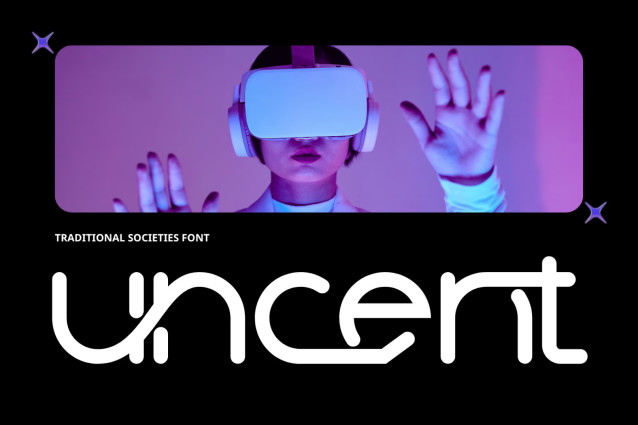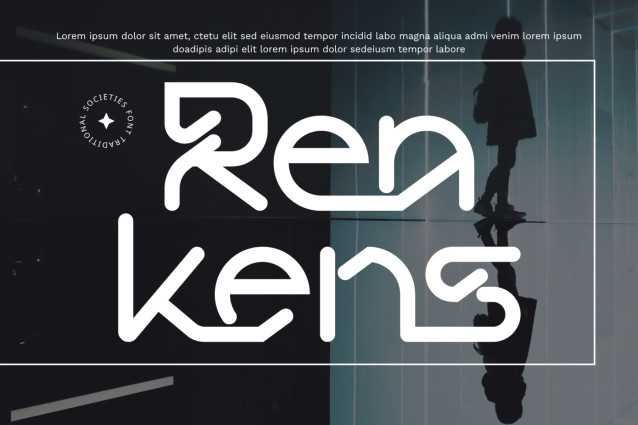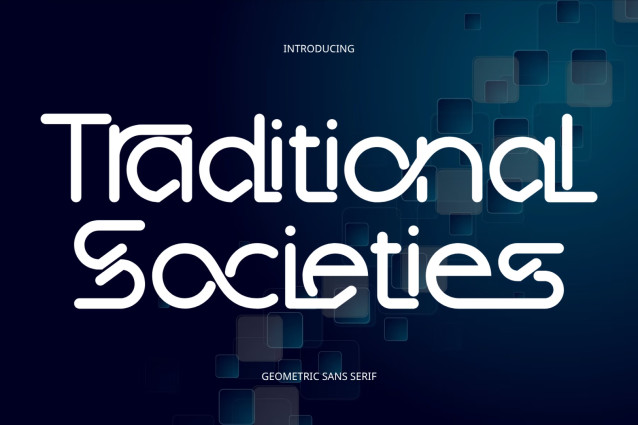
Traditional Societies – Futuristic Font
Traditional Societies – Futuristic Font – Futuristic Monoline & Infinity Loop Display Font is a distinctive geometric display typeface that explores the intersection of modern minimalism, futuristic design, and experimental letter construction. Built around clean monoline strokes, rounded terminals, open forms, and carefully balanced geometric shapes, the font transforms familiar characters into bold and unconventional visual structures. Circular curves interact with straight lines and unexpected cuts, giving each letter a modular, architectural quality while maintaining a consistent rhythm throughout the typeface.
With its smooth geometry and highly stylized letterforms, Traditional Societies creates a strong contemporary identity without relying on excessive decoration. Unusual character constructions, generous openings, and subtle retro-futuristic influences give the font a personality that feels both technological and artistic. Its distinctive shapes become especially effective at large sizes, where the details of each letter can function almost like individual graphic symbols.